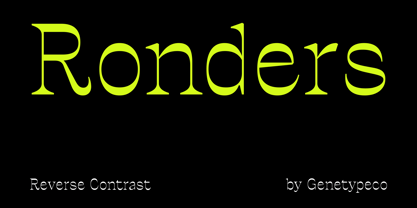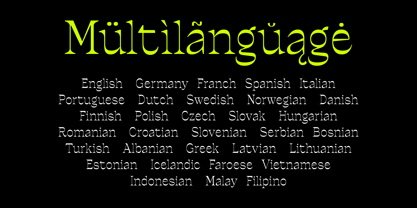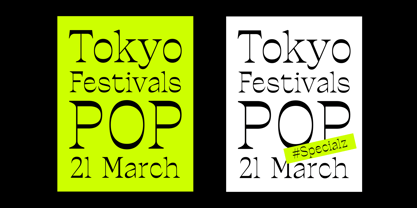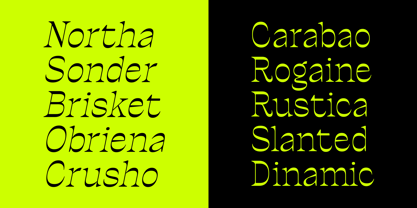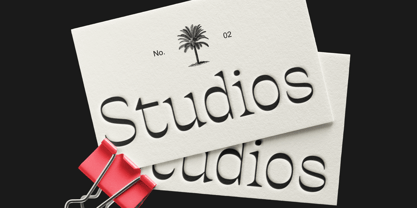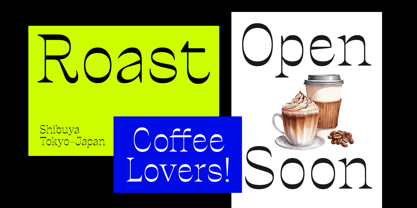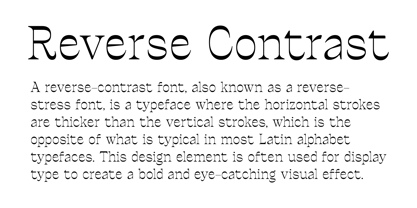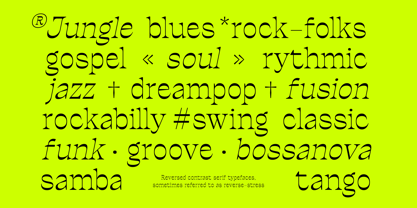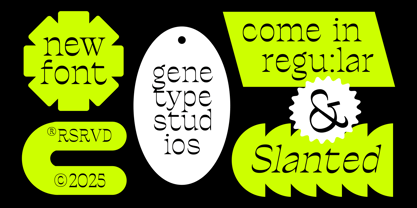
Ronders Reverse Contrast
by Genetype
The Ronders Reverse Contrast Font Family was designed by Bagus Arya Kirana and published by Genetype. Ronders Reverse Contrast contains 2 styles and family package options.
Ronders is a fresh take on the classic serif, featuring reverse contrast that flips typographic tradition on its head. With its bold horizontals, quirky curves, and high character personality, this typeface brings a dynamic, contemporary twist to editorial layouts, branding, posters, and more.
Perfectly suited for designers who want to stand out, Ronders is both retro-inspired and forward-thinking—a font that demands attention while remaining stylish and readable.
Now also available in a stylish Slanted version, adding extra movement and energy to your compositions